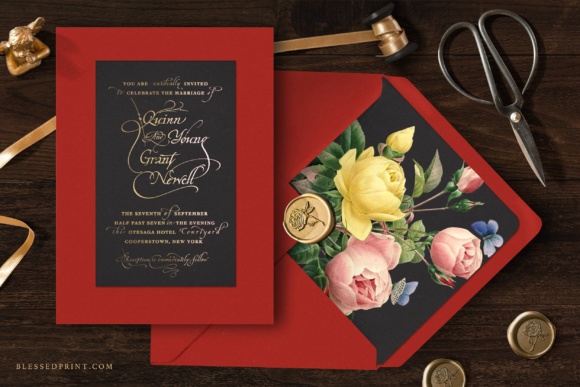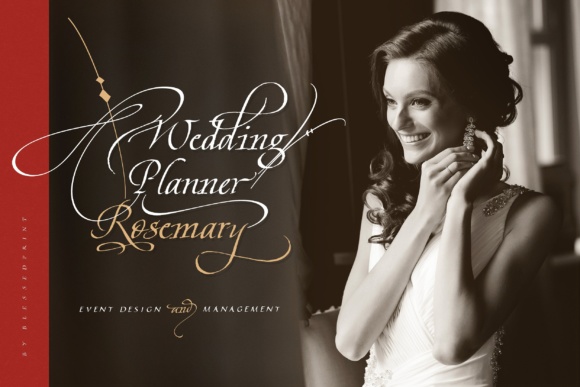
Cardinal Font
db-ku.com - Script & Handwritten -- The Cardinal is a traditional italic script that offers plenty of elegant swashes and swirls. It is ideal for wedding and anniversary invitations, postcards and menus.